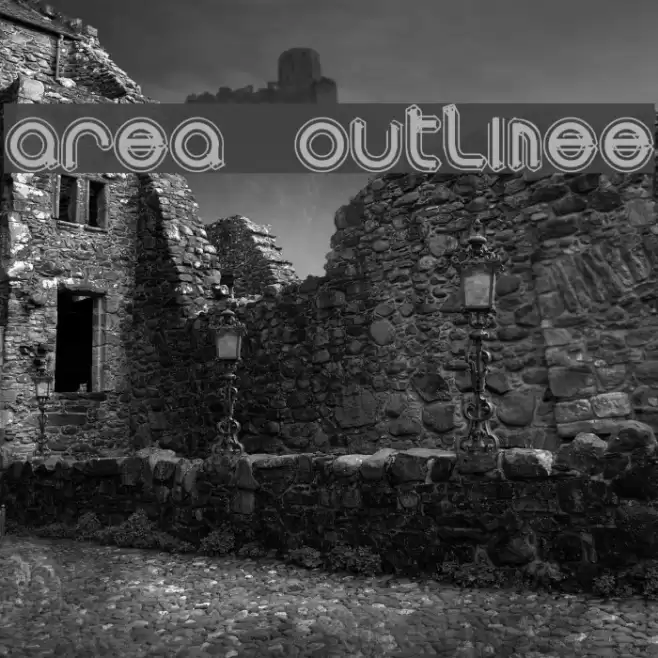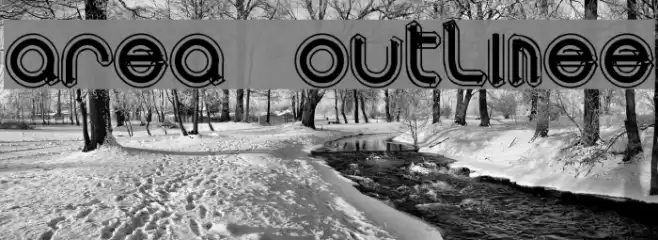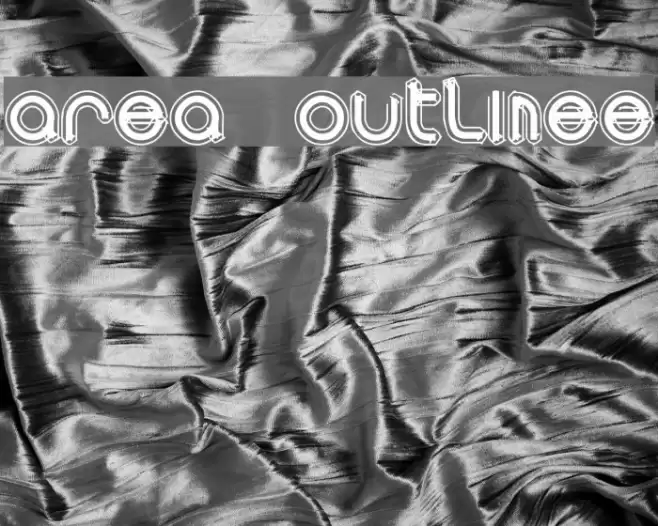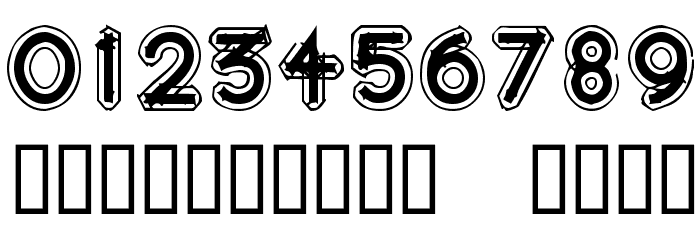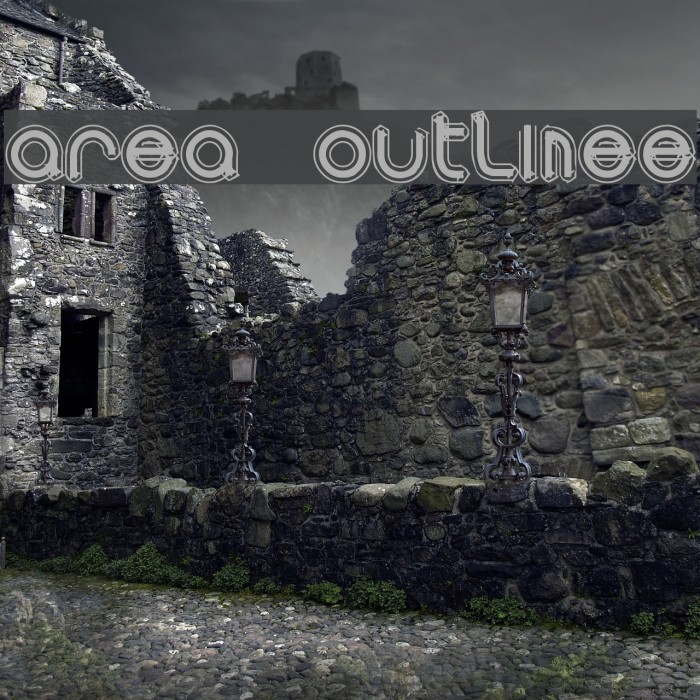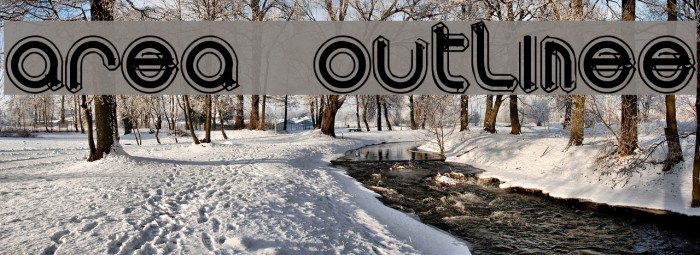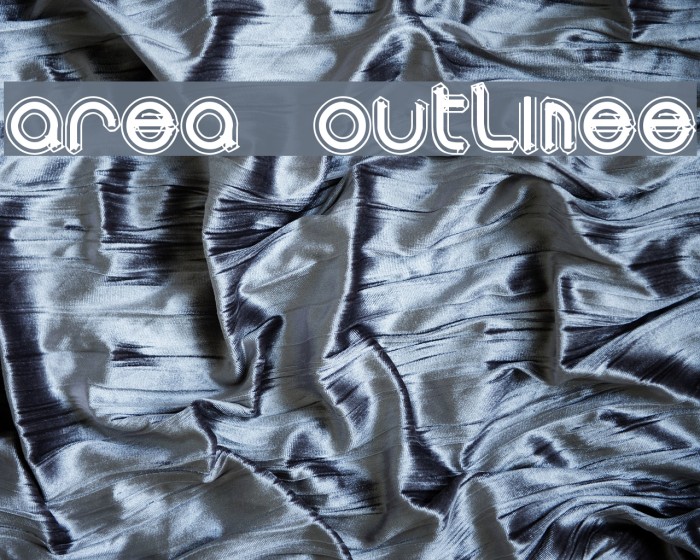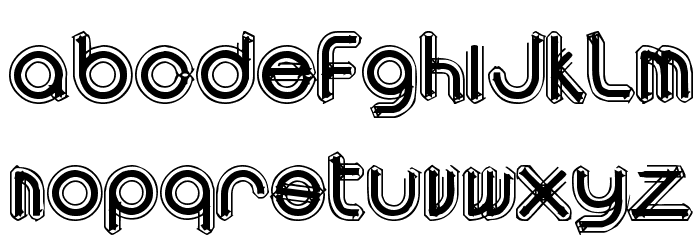
area OUTLINEe Font
area OUTLINEe Description
This font features a bold, three-dimensional outline style that gives each character a striking, layered appearance. The letters are constructed with a combination of thick and thin lines, creating a sense of depth and dimension. The geometric shapes are consistent throughout, with rounded edges and a modern aesthetic. The uppercase and lowercase letters maintain a uniform style, while the numerals and special characters complement the overall design. This font's unique outline effect makes it stand out, offering a visually engaging experience.
A bold, three-dimensional outline font with a modern, geometric style from Crazy fonts.
- Proposed Projects: Ideal for posters, headlines, branding materials, and any project requiring a bold, eye-catching typeface.